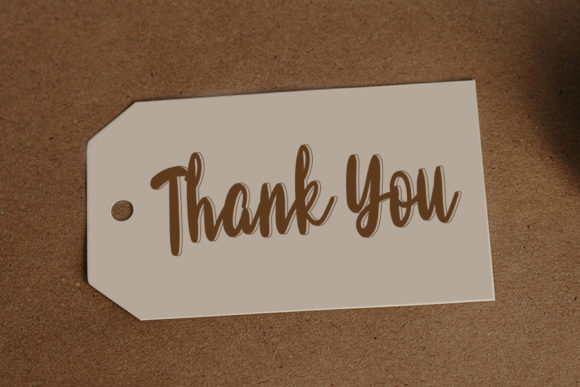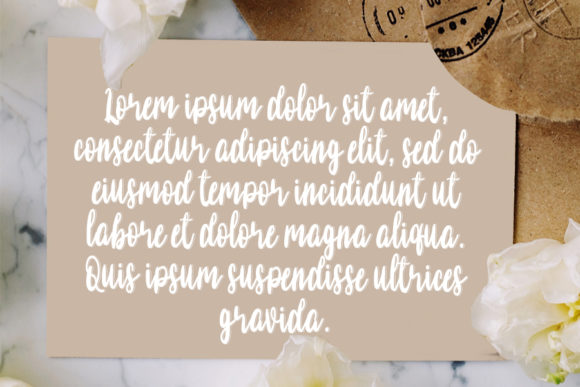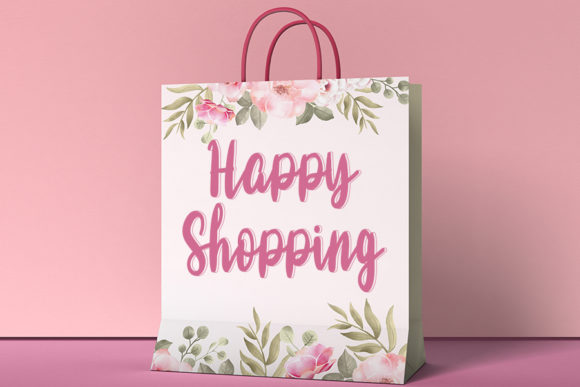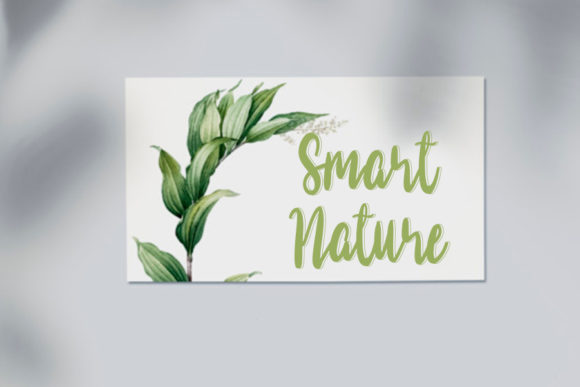
About Welcome Valentinessa Font
Welcome Valentinessa is a sweet and delicate handwritten font. Dainty and joyful, this font will be ideal for writing wedding invitations, cards or any other design that may need a romantic, personalized touch!